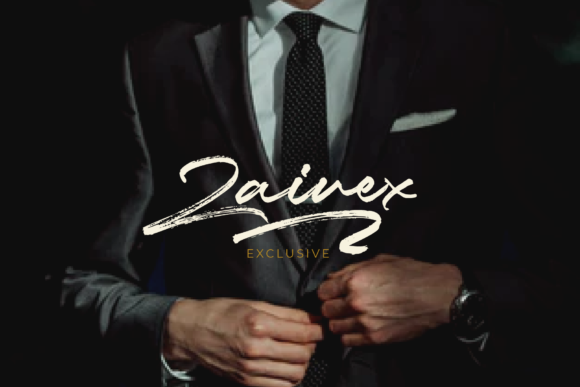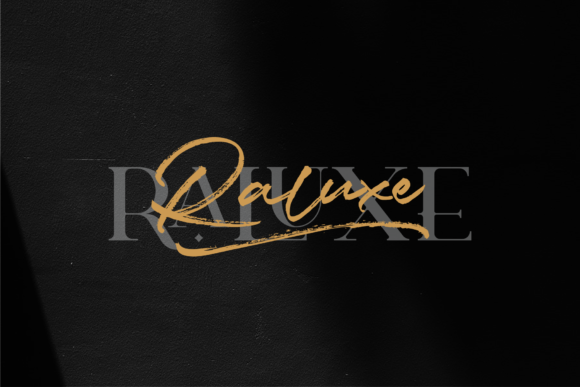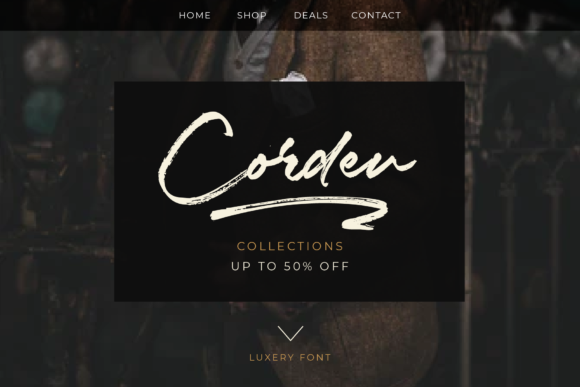
Introduction to Luxery Font
As designers, we’ve all been there – staring at a blank canvas, trying to bring our creative vision to life. The moment of inspiration hits, and suddenly, the entire project comes together in a flash of brilliance. But, what happens when you’re stuck, and that perfect font eludes you? That’s where Luxery Font comes in – a stylish, original handwritten font that will elevate your designs to the next level.
With its high-quality, brushed texture and transparent background, Luxery Font is the perfect design resource for any creative project. Whether you’re working on a logo, brochure, or social media graphics, this font is sure to make your design stand out from the crowd. And the best part? Luxery Font is available for a free download, making it an accessible and valuable addition to any designer’s toolkit.
As a designer, you understand the importance of having the right tools at your fingertips. That’s why Luxery Font is a game-changer – it’s the perfect way to add a touch of sophistication and elegance to your designs, making your creative project truly unforgettable.
Key Features of Luxery Font
- High-quality design with a transparent background, ideal for creative projects and design resources.
- Designed with a unique, modern aesthetic, perfect for adding a touch of sophistication to any creative project.
Honest Review: Luxery Font
I recently came across Luxery Font, and I have to say, it’s a high-quality design resource that caught my attention. The first thing I noticed was its sleek and modern aesthetic, perfect for a creative project that requires a touch of sophistication.
- ✨ High-quality design that stands out from the crowd
- ⚠️ Limited font styles and weights available
- ⚠️ Not ideal for projects that require a lot of customization, as it may not be as flexible as other fonts
Overall, I’m impressed with Luxery Font’s potential as a design resource. While it may have its limitations, it’s definitely worth considering for your next creative project. With its modern aesthetic and high-quality design, it’s sure to make a statement.
How to Use Luxery Font
Introduction to Luxery Font
Luxery Font is a high-quality design resource that offers a unique and elegant style. With its transparent background, it’s perfect for adding a touch of sophistication to your creative project.
Tips for Getting the Most Out of Luxery Font
To get the most out of Luxery Font, experiment with different font sizes, colors, and combinations to find the perfect look for your project.
Luxery Font is perfect for:
- Branding and logos
- Business cards and brochures